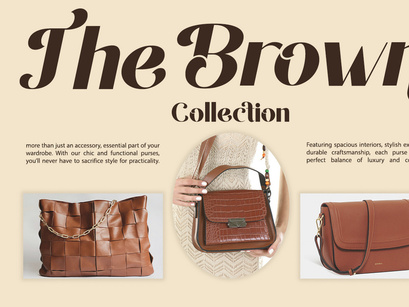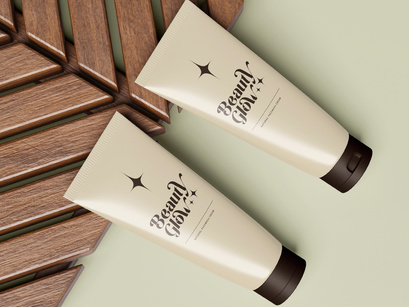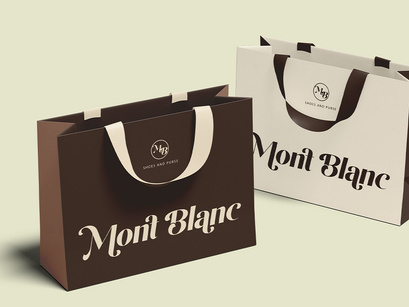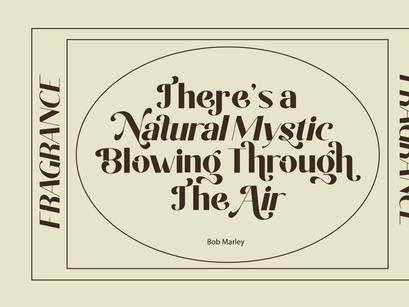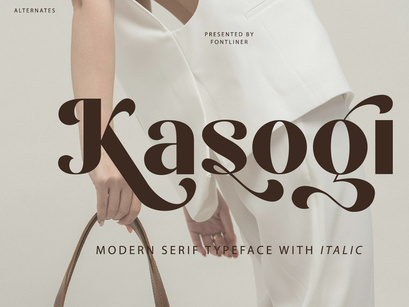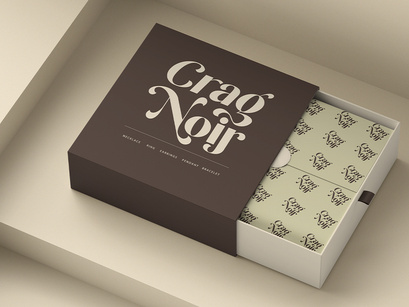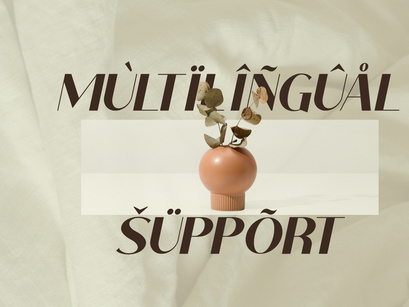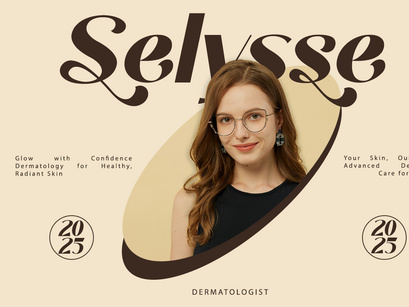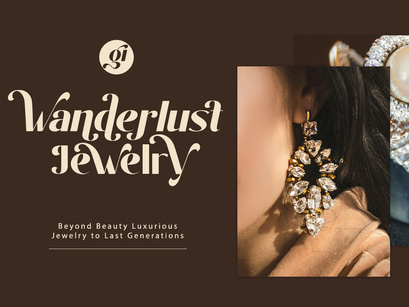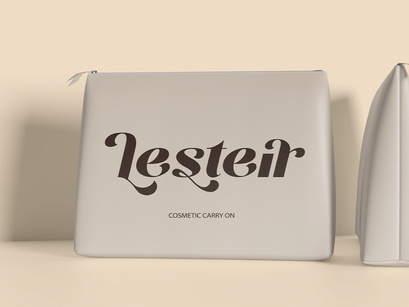
Kasogi - Modern Sans Font
Kasogi
Kasogi Italic
Kasogi
Introducing Kasogi - Modern Sans Serif Font, an extremely elegant and fragile serif font with beautiful ligatures and alternate glyphs. This typeface includes multilingual support, and it will be perfect to upgrade your brand to an entirely new level. Kasogi is perfect any project as logotype design, branding, cosmetic brands, wedding invitations, suite and stationery, greeting cards, , social media promo, quotes, banners and everything you can imagine!
• Stylistic Alternates
• Ligatures Character